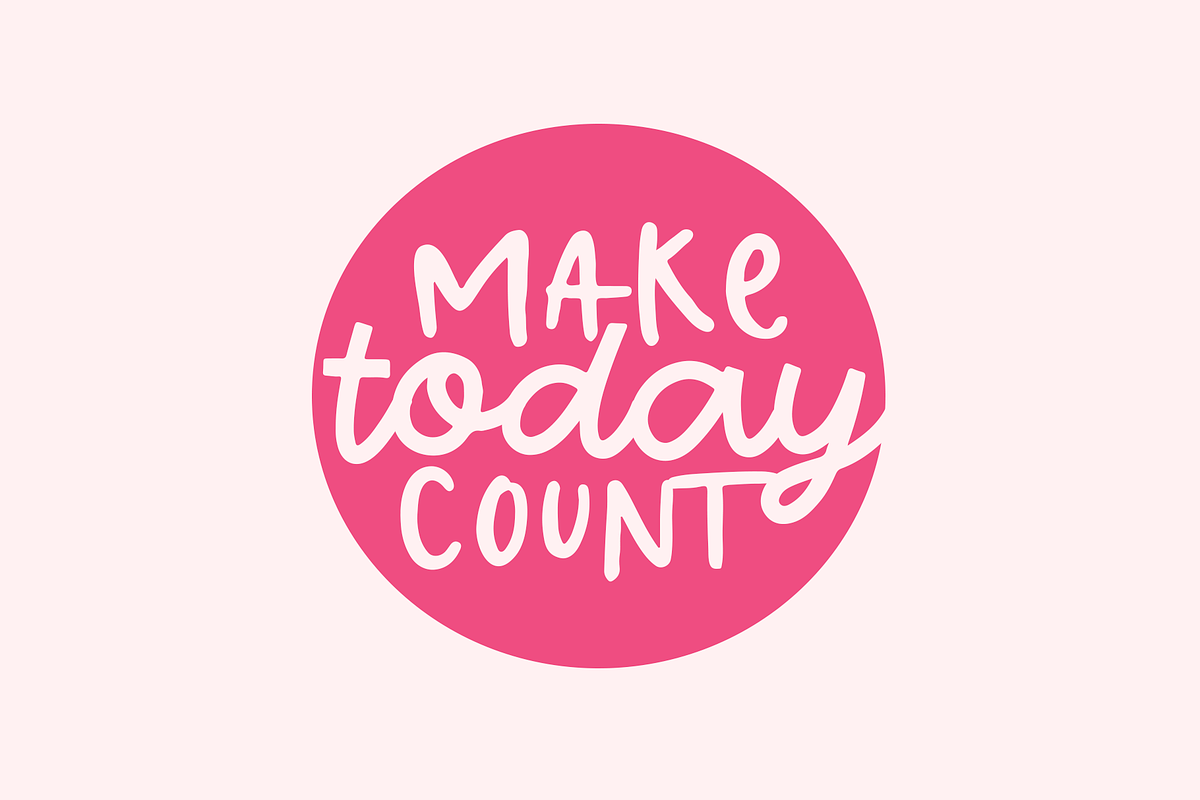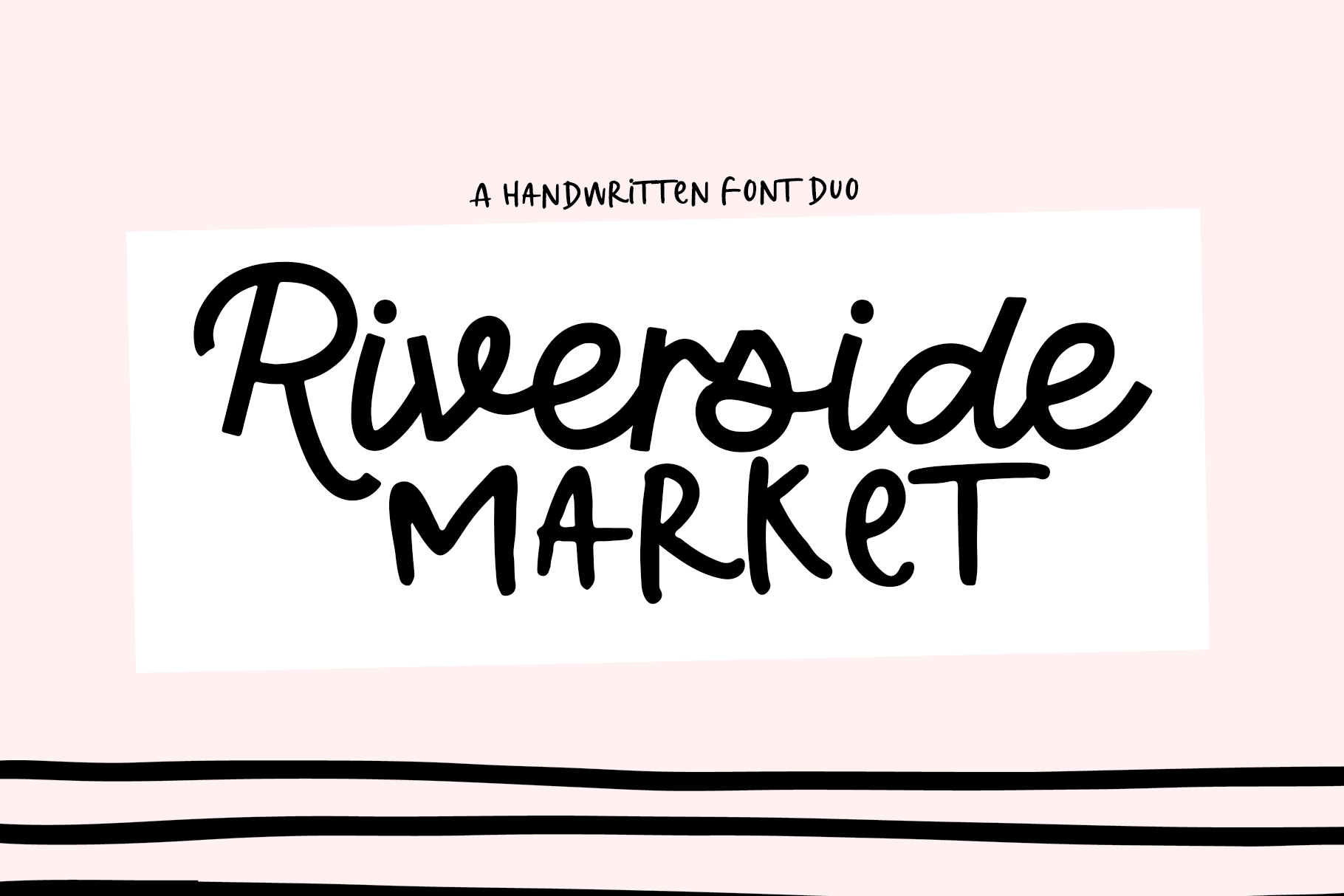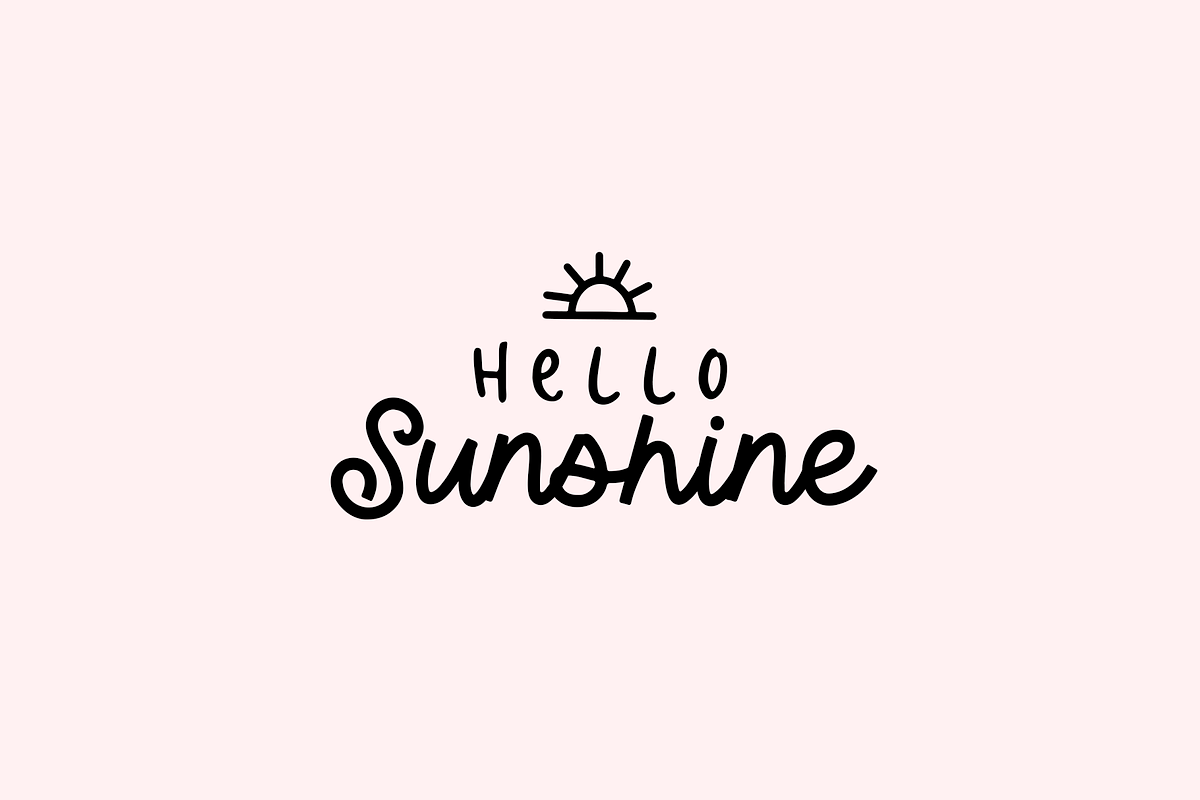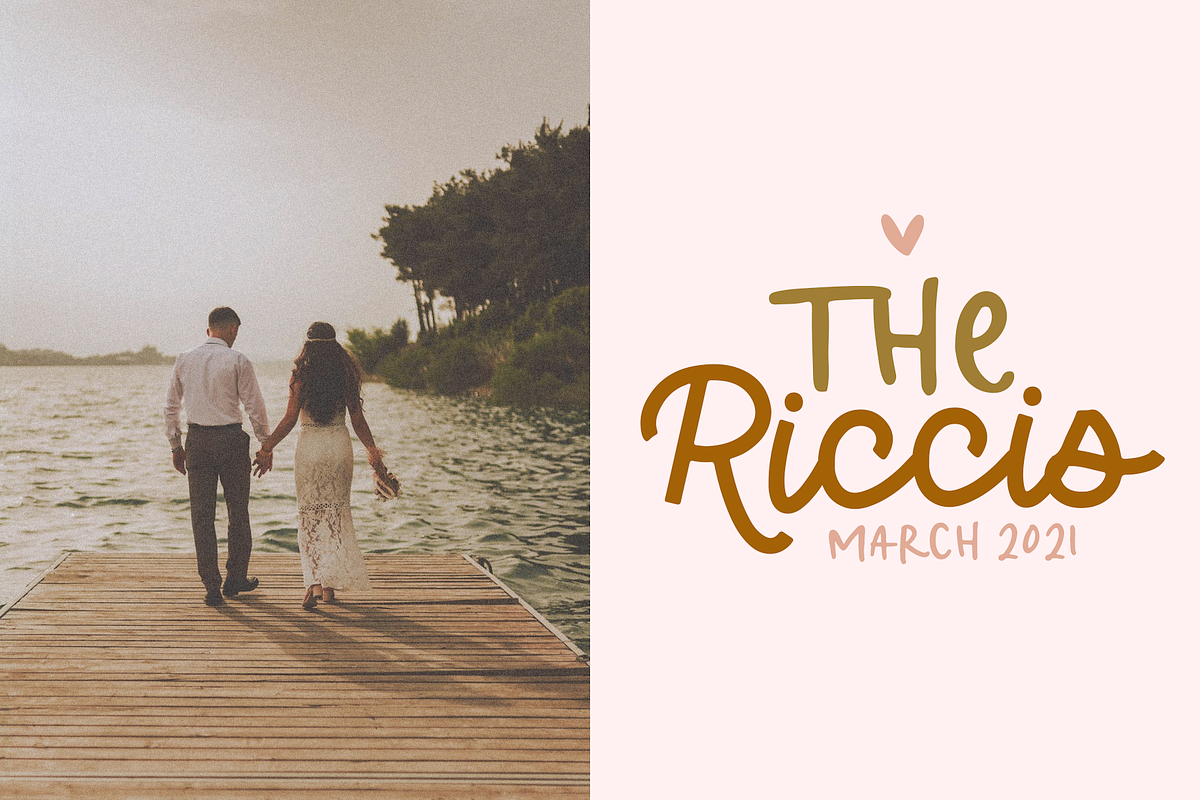
Riverside Market | Script Font Duo
Riverside Market Font Duo is a handwritten font pair.
- Market Print - a quirky + authentic print font. [TTF & OTF]
- Riverside Script - a monoline script font. [TTF & OTF]
This duo is perfect for quotes, headings, blogs, logos, brandings, invitations and more!